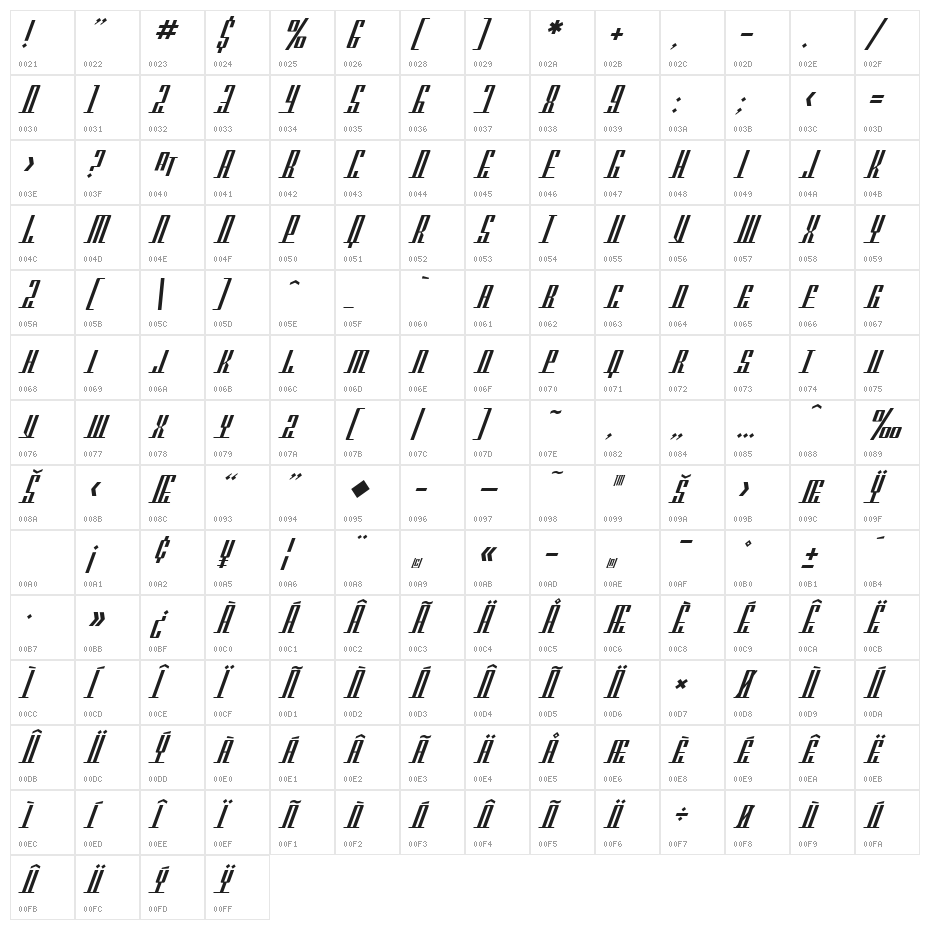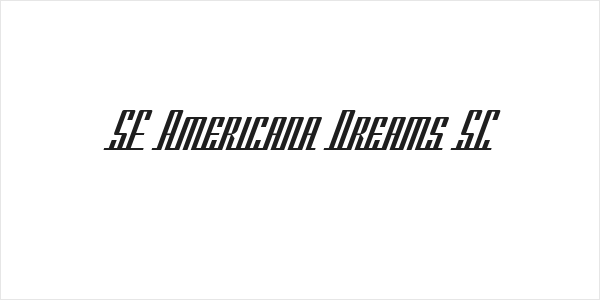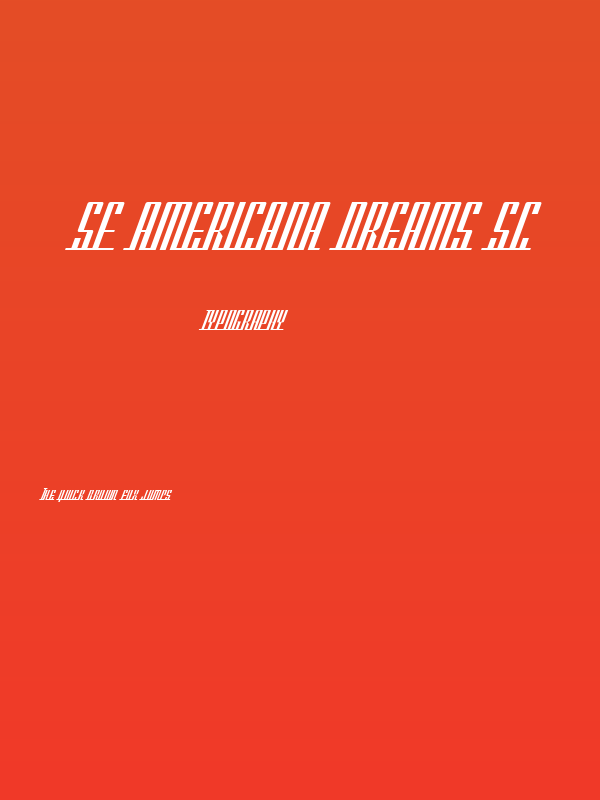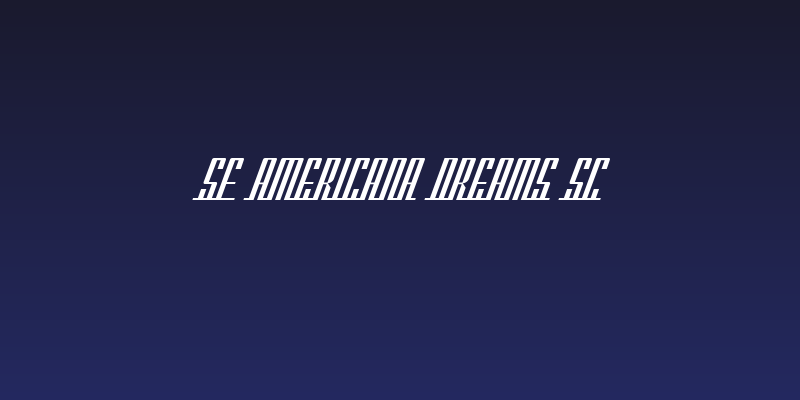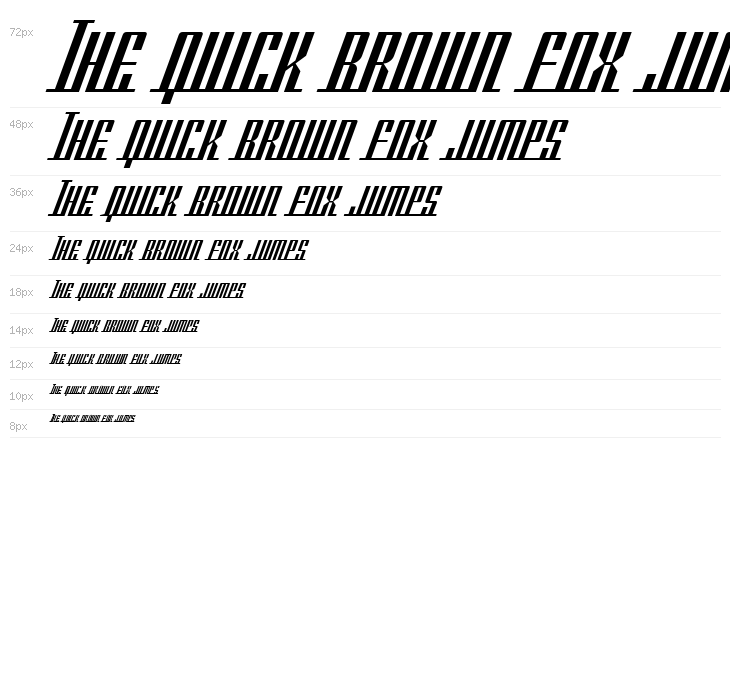
SF Americana Dreams SC Font
SF Americana Dreams SC Description
This font features a bold and dynamic design with a strong slant, giving it a sense of motion and energy. The characters are elongated and condensed, creating a sleek and modern appearance. The sharp angles and clean lines contribute to a futuristic and edgy style, making it stand out in any design. The uppercase and lowercase letters maintain a consistent style, while the numerals and special characters complement the overall aesthetic. This font is ideal for projects that require a bold statement and a contemporary look.
| Use Case | Logos, Headlines |
| Proposed Projects | Ideal for branding, sports team logos, posters, and dynamic advertisements. |